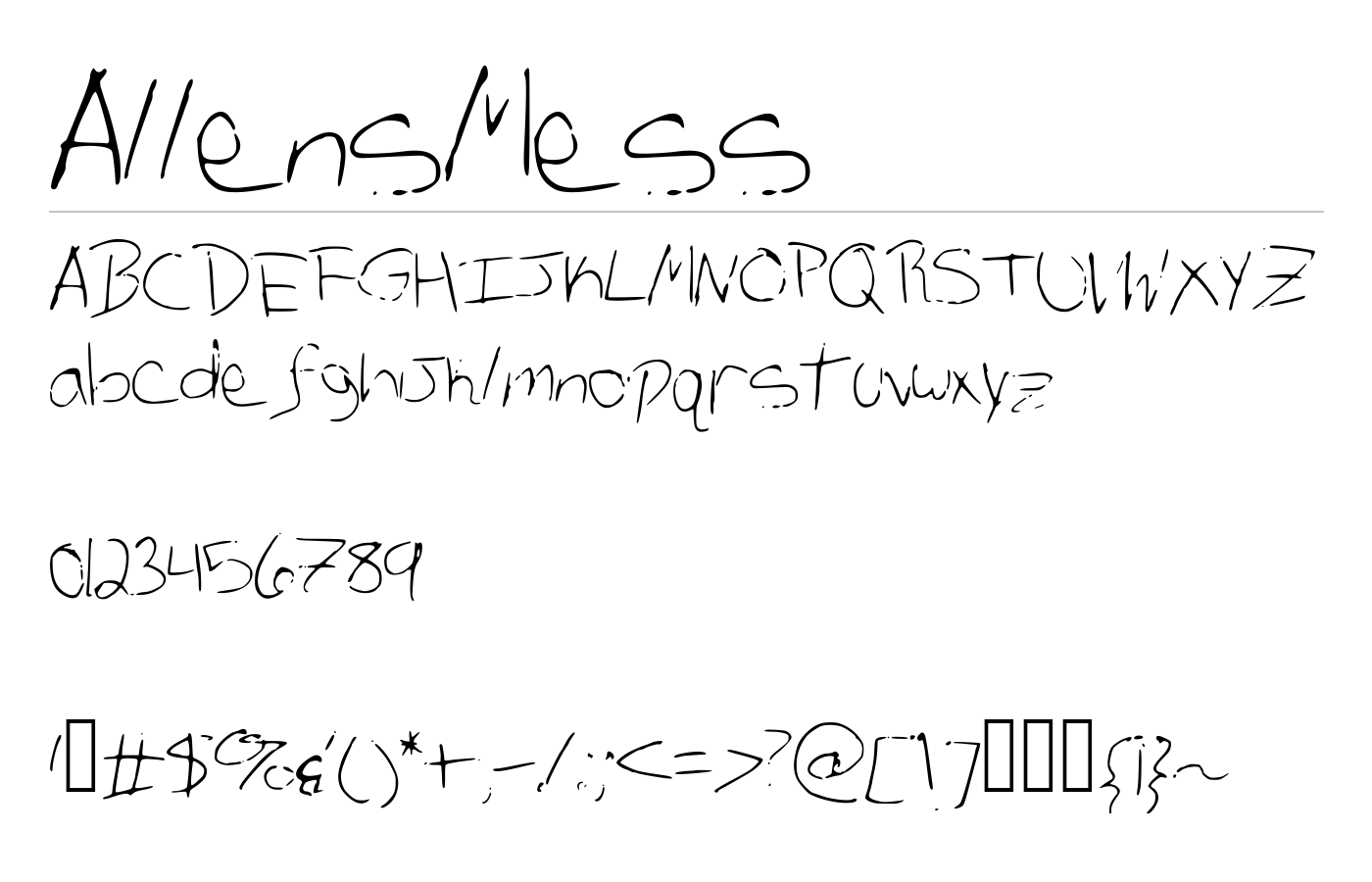
AllensMess is a quirky, handwritten sans serif font with a casual, irregular style that mimics a spontaneous pen doodle. Its thin, uneven strokes and playful, slightly chaotic letterforms make it ideal for creative projects seeking a relaxed, personal touch. This font works well for informal branding, art, and edgy editorial design where a charmingly imperfect, human feel is desired.
AllensMess Font
About AllensMess Font